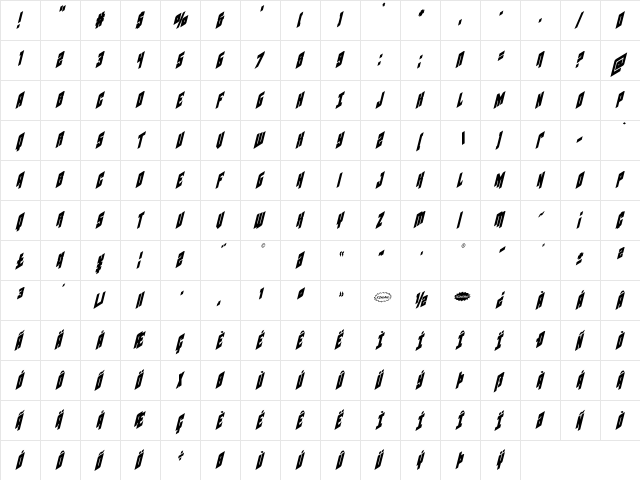
Galaxy Force Condensed Italic Font Preview
Design Context for Galaxy Force Condensed Italic Typeface
Galaxy Force Condensed Italic brings high-energy athletic personality to the page — its confident, muscular forms are built for impact. Its italic angle brings a sense of urgency and motion to the letterforms. The condensed width makes it efficient for tight spaces without sacrificing legibility.
Built for sports team identities, athletic apparel, event posters, and high-energy promotional material.
Pro Tip: Galaxy Force Condensed Italic thrives on contrast — try it large, bold, and tight against a clean background for maximum visual impact.